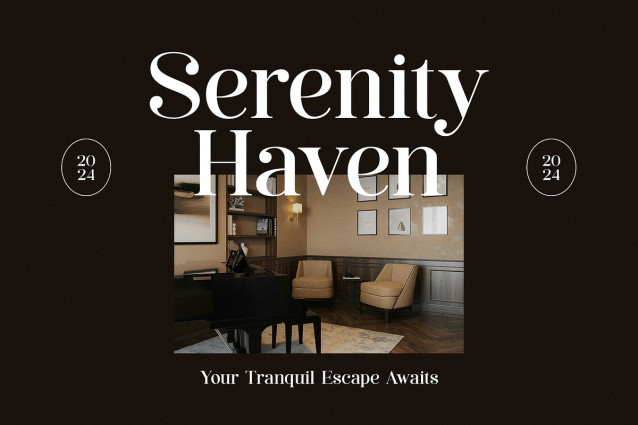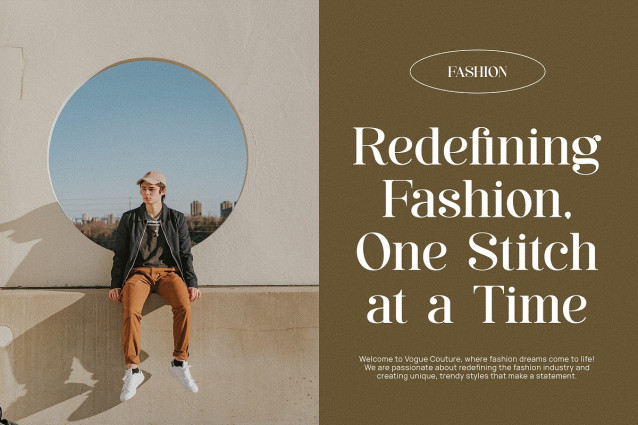
Makaroni Font
Makaroni Font, modern serif font with elegant style this is perfect for branding, logos, invitation, magazines, product packaging and more.